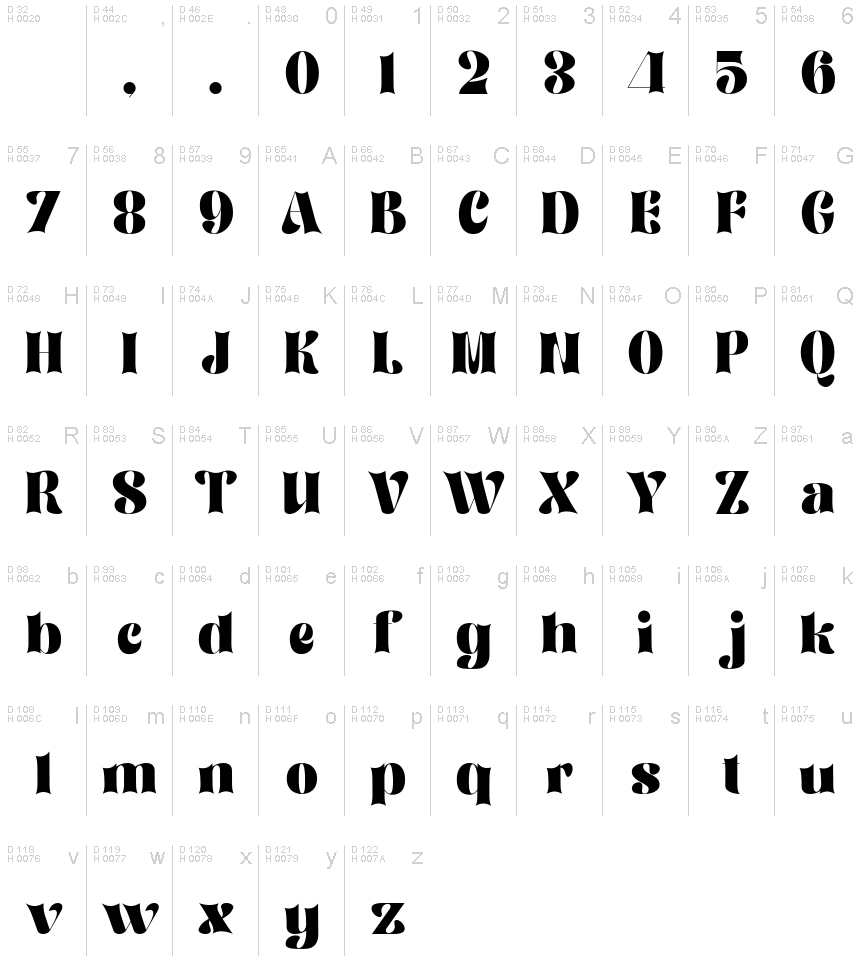
Kenlan Bold
Kenlan Bold, a captivating display font crafted by Muksal Creative, exudes a bold and commanding presence. With its sharp, angular serifs and striking contrasts, this font evokes a sense of strength and authority, making it an eye-catching choice for a variety of design applications. The clean, geometric forms and distinctive letterforms lend an air of modern sophistication, while the overall aesthetic conveys a sense of confidence and power.
Kenlan Bold's versatility allows it to shine in diverse design contexts, from attention-grabbing headlines and impactful branding to striking packaging and editorial layouts. Its bold presence commands attention, making it an ideal selection for attention-grabbing titles, emphatic call-to-actions, and visually striking typographic treatments. Kenlan Bold's combination of distinctive style and functional versatility makes it a compelling choice for designers seeking to make a bold statement.